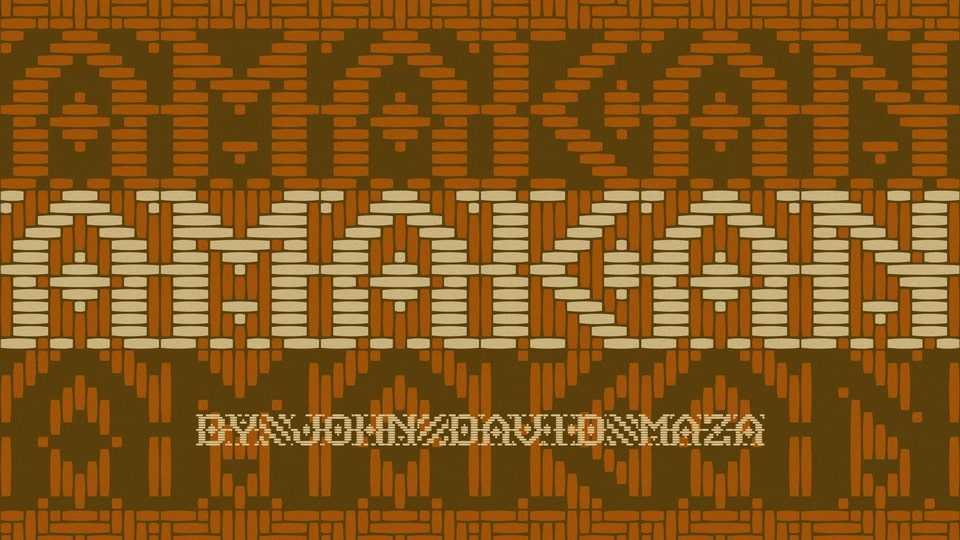
Download Amakan font, a typeface patterned after the woven split-bamboo mats used as wall cladding for traditional nipà huts in the Philippines, translating repeating motifs of diagonal, zigzag, and diamond-like shapes in the weaves into typography.